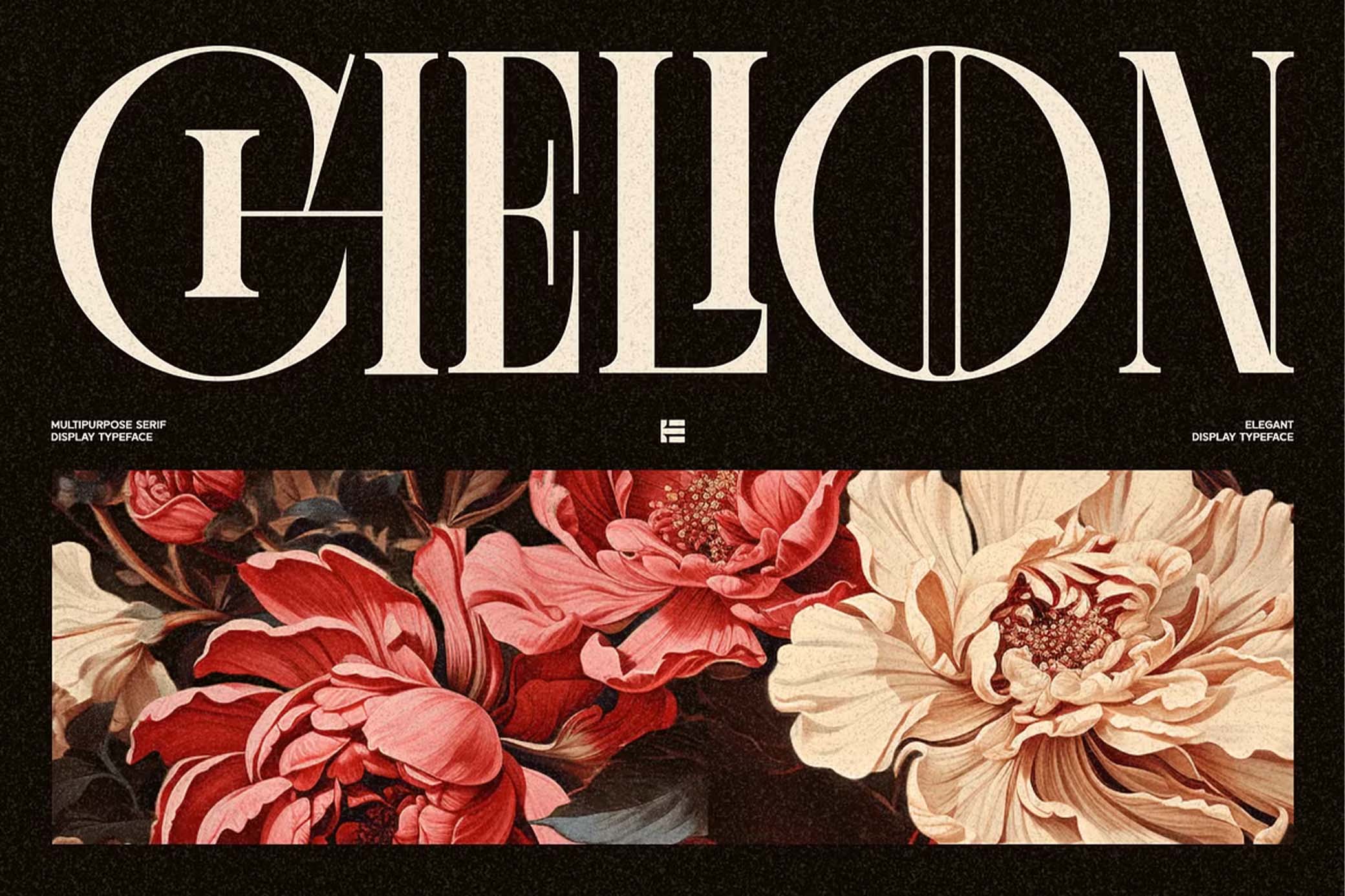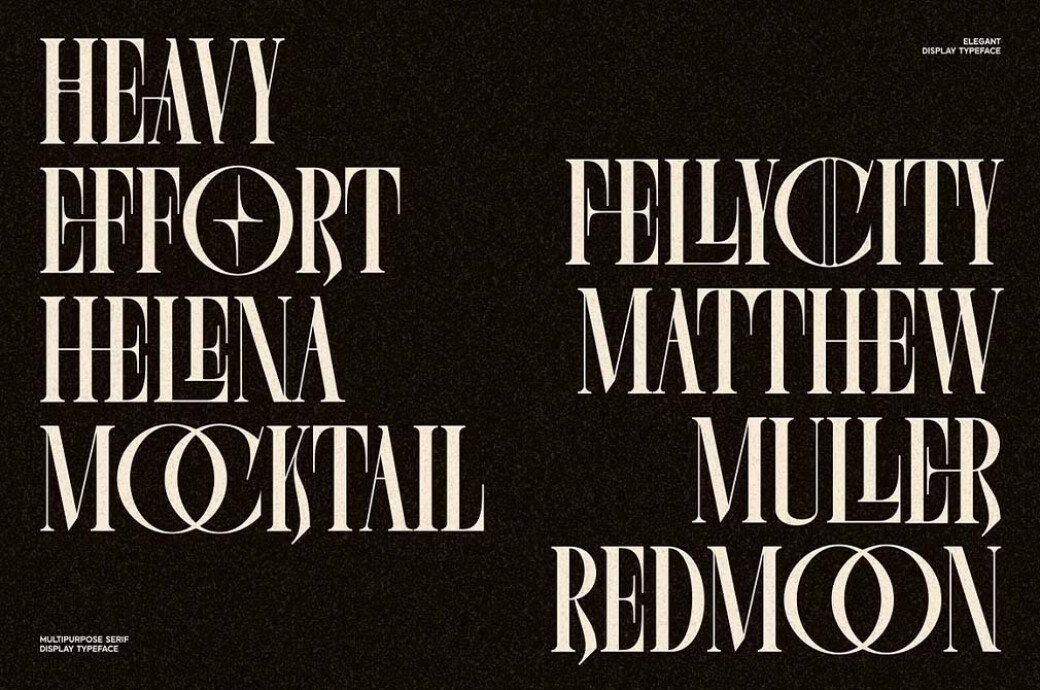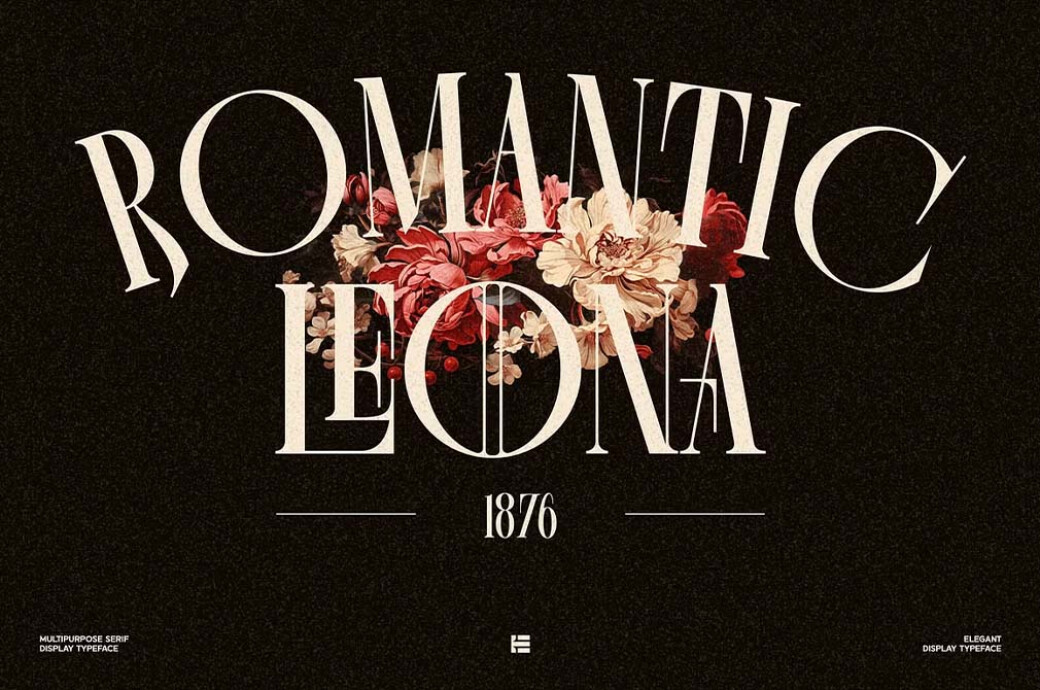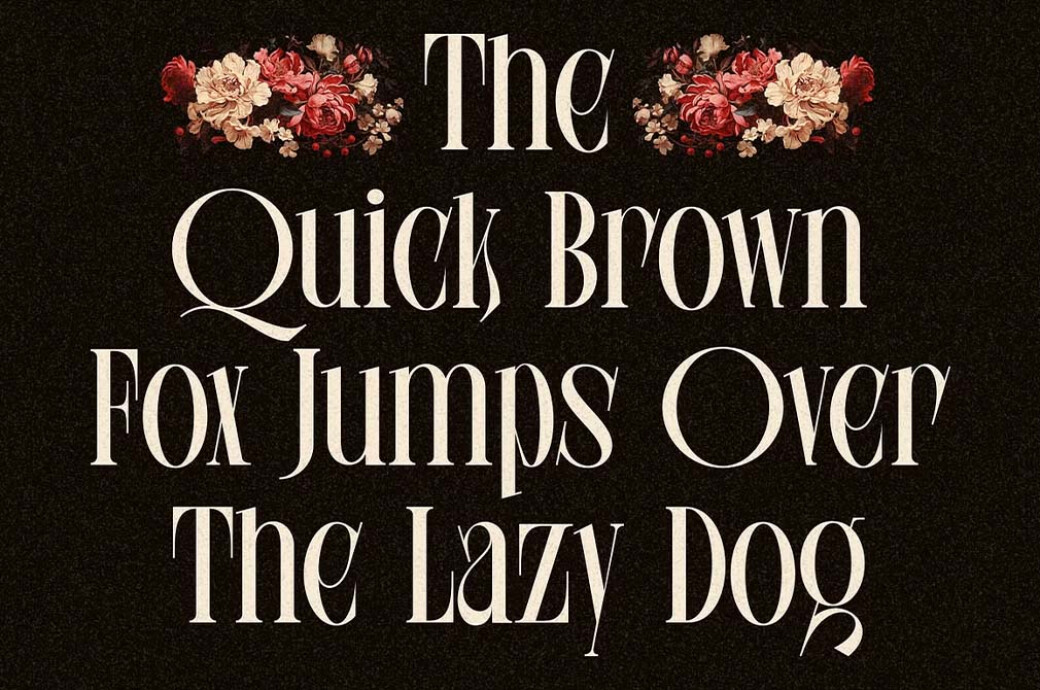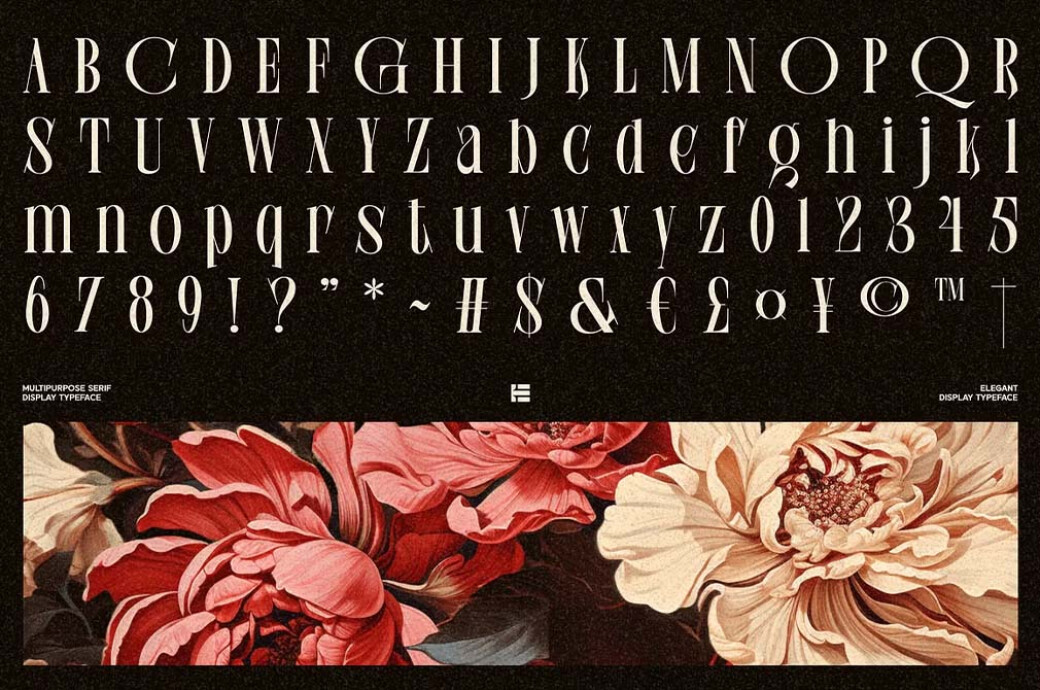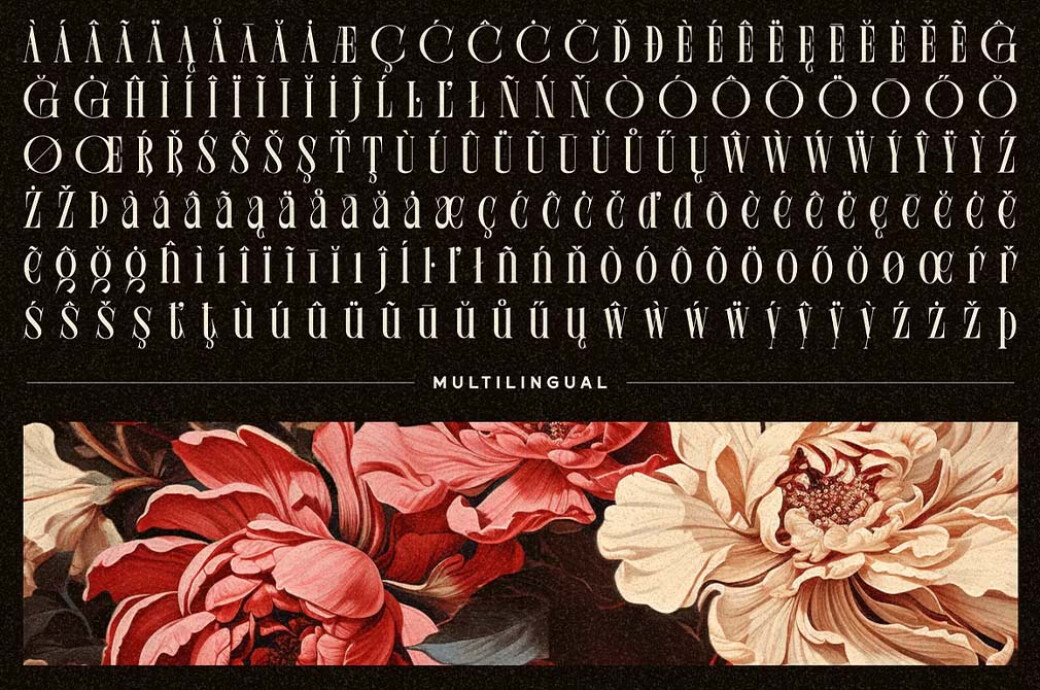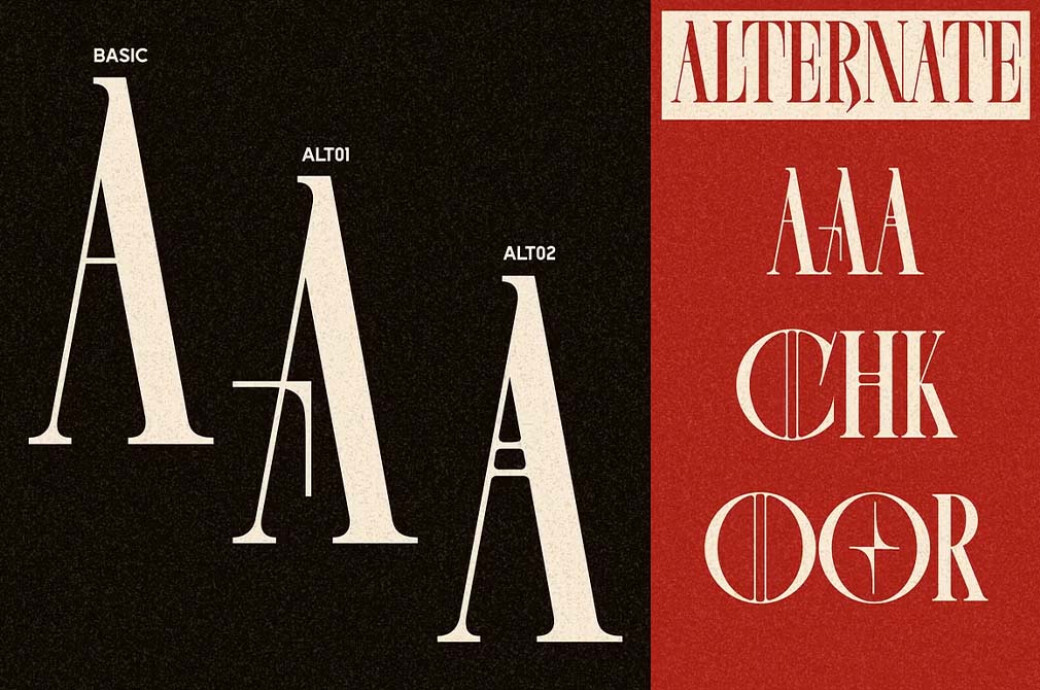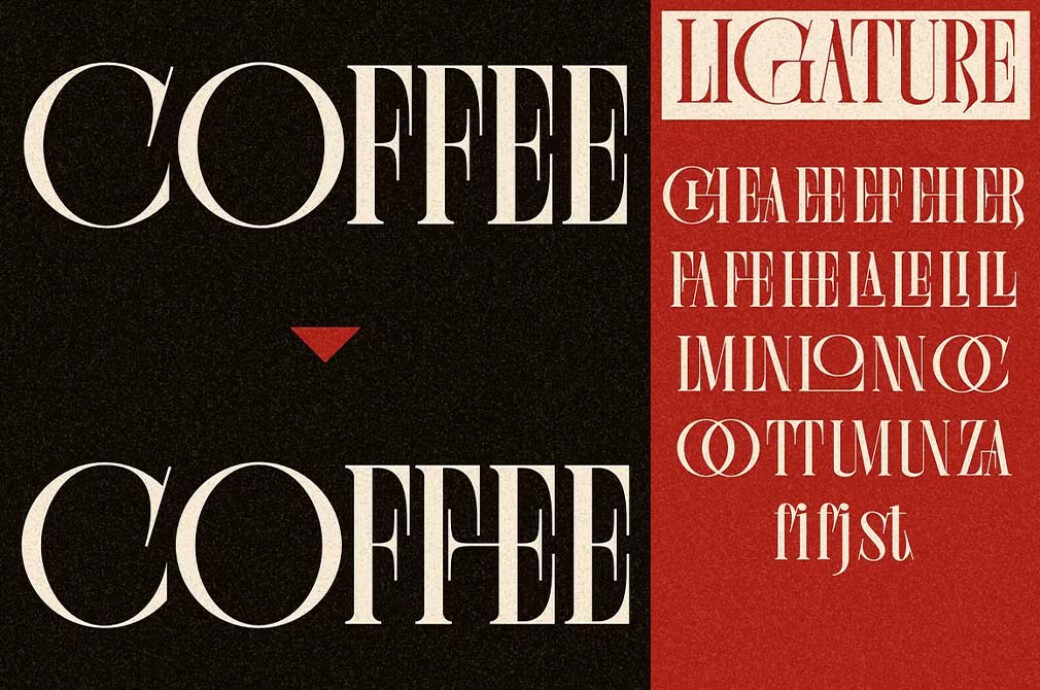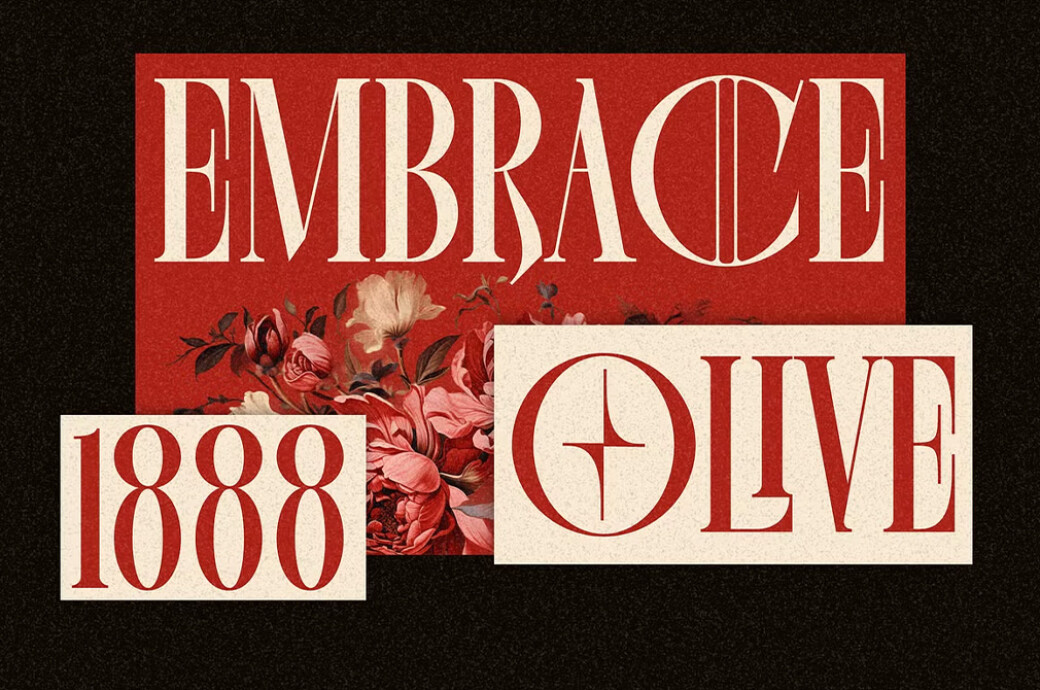
Chelion Display Serif
Sometimes, to invent something new, you should immerse in the past — who can say what it holds? Chelion is just the case: it brings the echoes of the French typography of the XVIII century and merges the Didot elegance with a whole new appearance.
This display serif would easily crown any toolbox — not to mention design projects, starving for some raw beauty and typographic classics. Chelion has absorbed the cultural heritage in every character: upper and lowercases, punctuation marks, symbols, alternates, and accented letters for multilingual support. We might have listed hundreds of creative tasks you might accomplish with its help, but we'll just emphasize that the font looks so dramatic that it would be an unforgivable crime not to place it in the limelight.